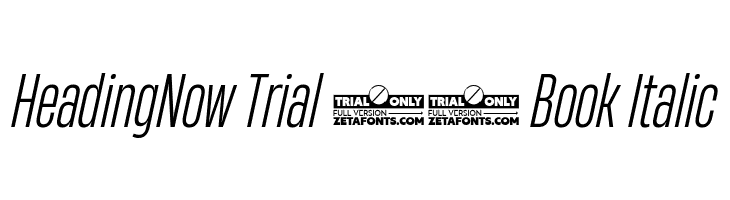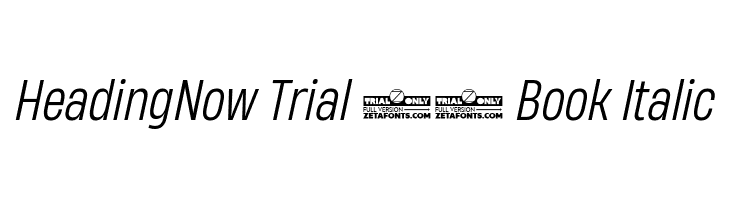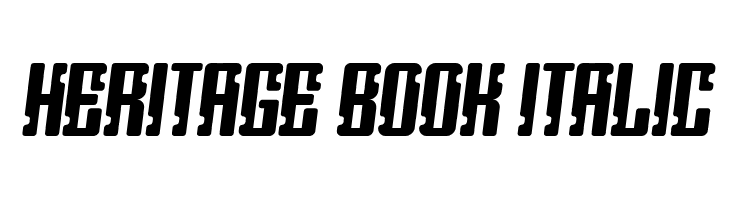
• HeadingNow Trial 13 Book Italic
A sleek, modern italic font with medium contrast and elegant proportions.
• HeadingNow Trial 23 Book Italic
A sleek, modern italic font with elongated, condensed characters.
• HeadingNow Trial 33 Book Italic
A modern, italic, and condensed font with a sleek and dynamic style.
• HeadingNow Trial 43 Book Italic
A modern, italicized font with sleek, elongated characters.
• HeadingNow Trial 53 Book Italic
A sleek, modern italic font with elongated characters and consistent stroke width.
• HeadingNow Trial 63 Book Italic
A modern, italic sans-serif font with clean lines and a dynamic style.
• Heptal Book
A modern serif typeface with clean lines and balanced proportions.
• Heptal Book Italic
Elegant serif font with a classic italic style.
• Heritage Book Italic
A bold, italicized font with strong, consistent strokes and sharp edges.
• Heritage Book Regular
A bold, decorative font with a vintage flair and strong, block-like characters.